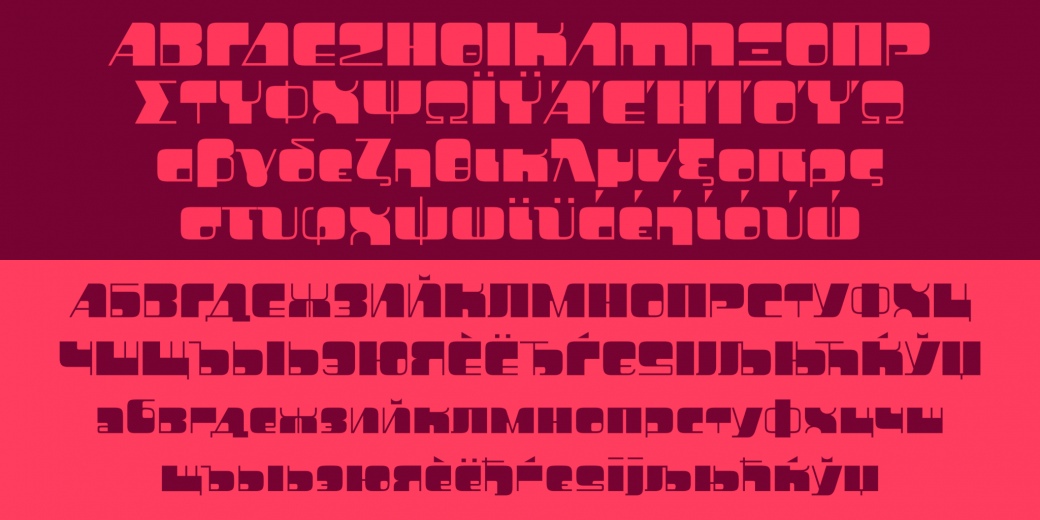
Celebrity Font
Celebrity Font is perfect for entertainment industry branding, red carpet event marketing, glamorous fashion campaigns, luxury lifestyle advertising, VIP entertainment venues, star-studded event graphics, exclusive nightclub communications, and high-profile celebrity promotions.
What makes Celebrity Font exciting is its star-quality glamour that embodies the dazzling prestige and exclusive allure of celebrity culture with Hollywood sophistication and red carpet elegance. The font features luminous letterforms with star-worthy proportions and glamorous character that evoke spotlights, paparazzi flashes, and the mesmerizing magnetism of celebrity lifestyle and entertainment industry glamour. Its distinctive celebrity styling and glamorous appeal communicate fame, luxury, and star power, making every message feel illuminated by stardom and touched by the exclusive brilliance of celebrity culture and entertainment industry prestige.
The Celebrity Font family includes regular weight with uppercase and lowercase letters, numerals, punctuation marks, and special characters. Premium versions often feature glamorous alternates and star-inspired elements that enhance the celebrity, high-profile aesthetic perfect for entertainment and luxury applications.
This dazzling celebrity typeface brings instant glamour and entertainment credibility to any star-focused project. Celebrity Font Free Download offers exceptional value for entertainment businesses and luxury brands seeking to communicate celebrity appeal, star quality, and entertainment industry prestige to glamour-seeking audiences and celebrity culture enthusiasts.
The glamorous character of Celebrity Font makes it particularly valuable for entertainment companies, luxury fashion brands, and high-profile event organizers. Its excellent visibility ensures celebrity messaging and glamorous communications capture attention while maintaining the distinctive star-quality aesthetic that appeals to audiences seeking exclusive celebrity experiences and entertainment industry glamour.
Entertainment industry marketers appreciate how Celebrity Font effortlessly conveys celebrity authenticity and star-power appeal. The font's luminous proportions and glamorous details create prestigious brand materials that establish connections with audiences who value celebrity culture, entertainment luxury, and the dazzling appeal of star-quality experiences and red carpet glamour.
The versatile stardom of this typeface extends to luxury hospitality, high-end fashion, and exclusive entertainment where celebrity authenticity enhances prestige positioning and glamorous appeal. Celebrity Font Free Download provides creative professionals with an essential tool for developing memorable, star-driven designs that resonate with audiences who embrace celebrity culture, entertainment glamour, and the luminous prestige of star-quality luxury in their entertainment and lifestyle experiences.